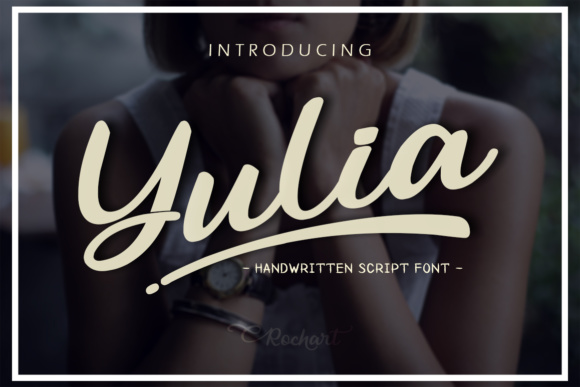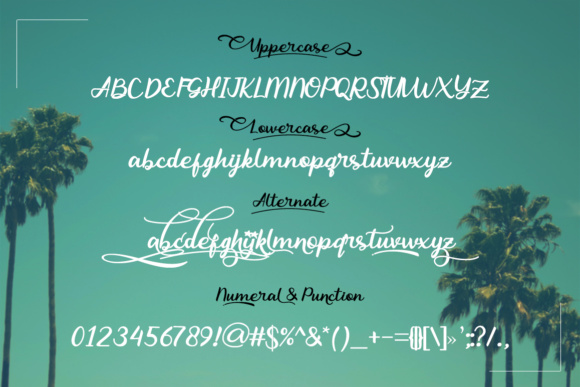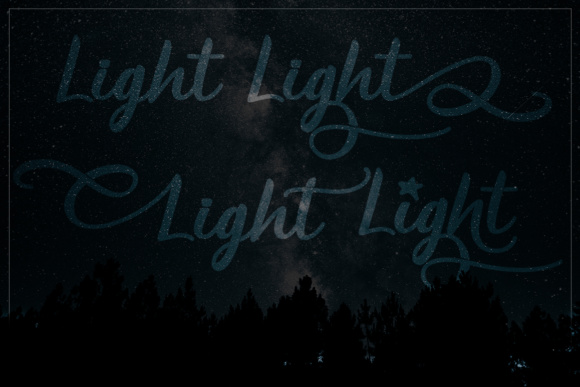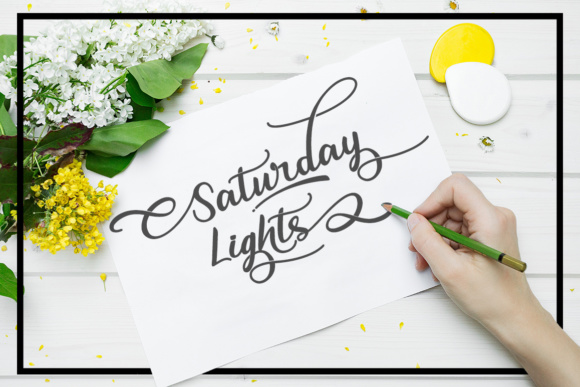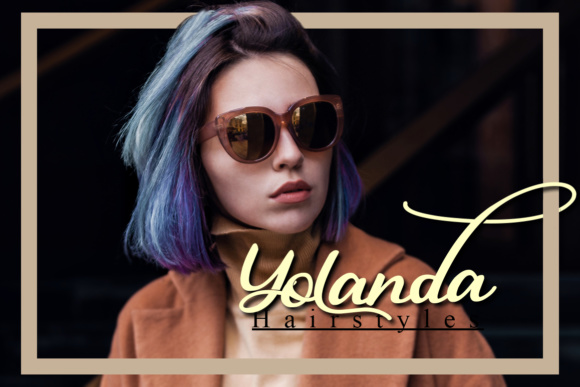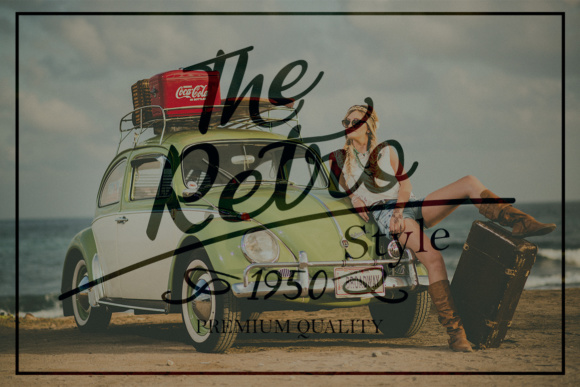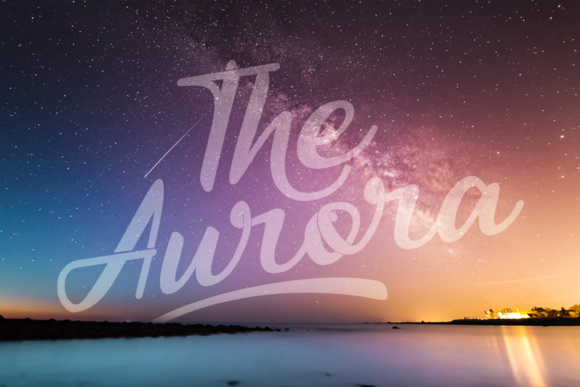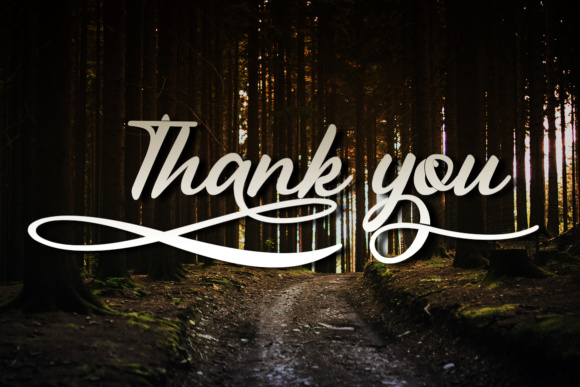
Yulia Font
About Yulia Font
Yulia script is a lovely modern calligraphy typeface with an elegant touch. It can be used for various purposes such as headings, signatures, logos, wedding invitations, t-shirts, letterheads and much more!